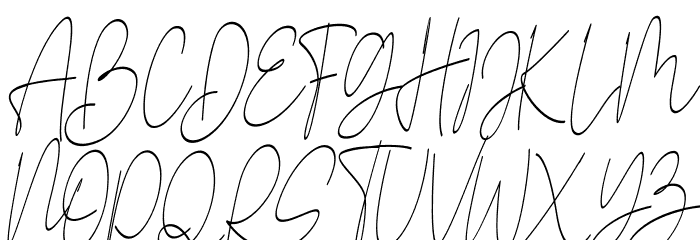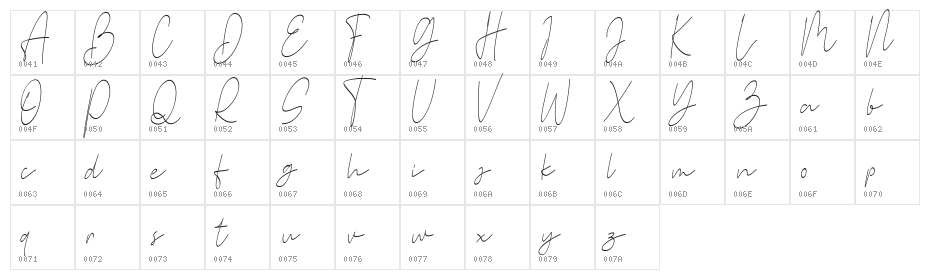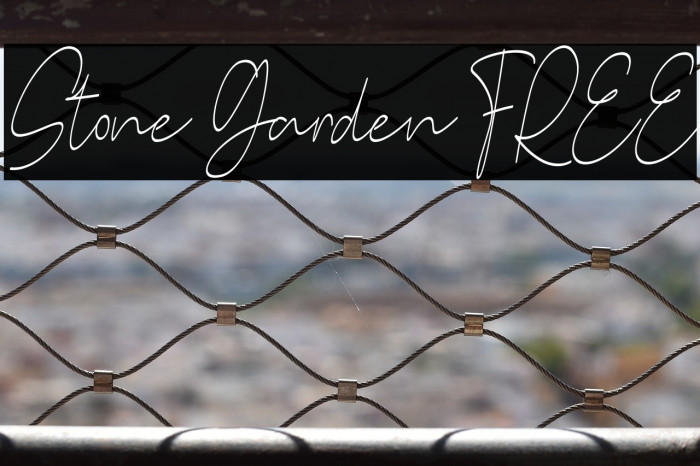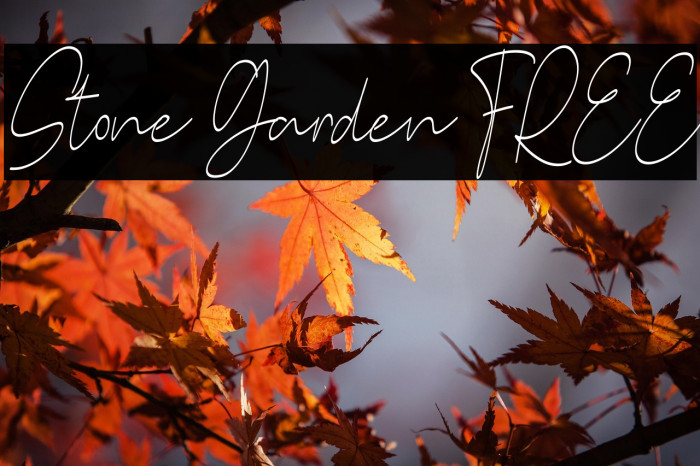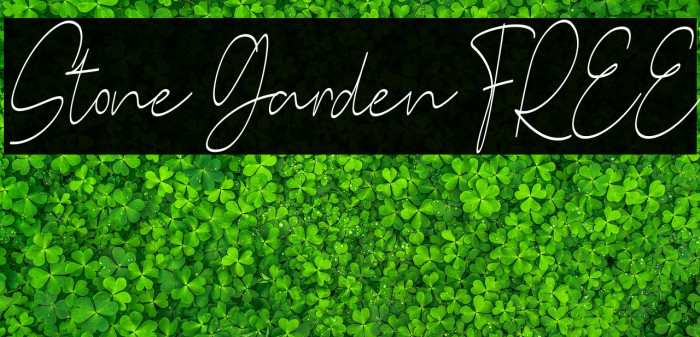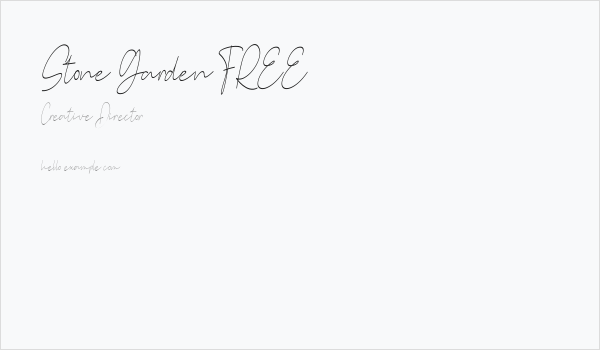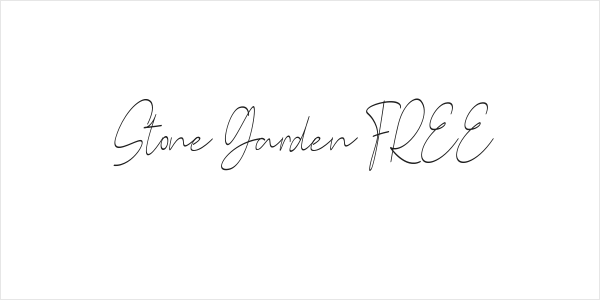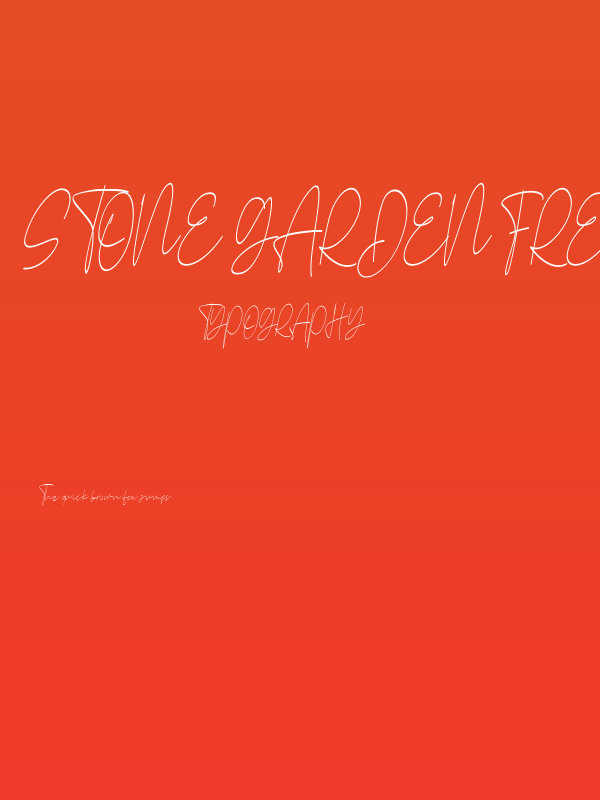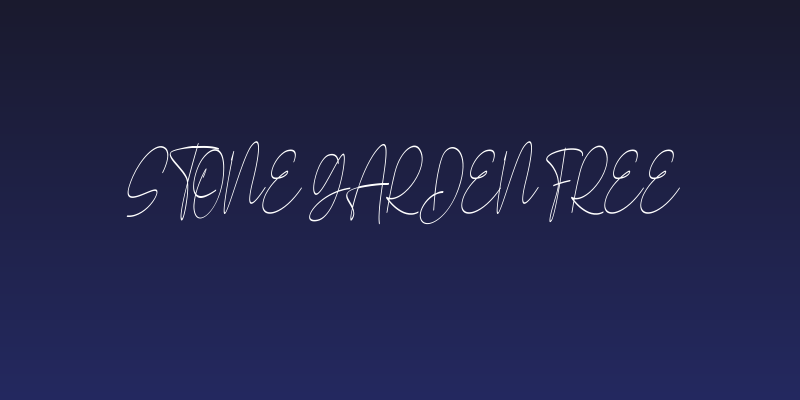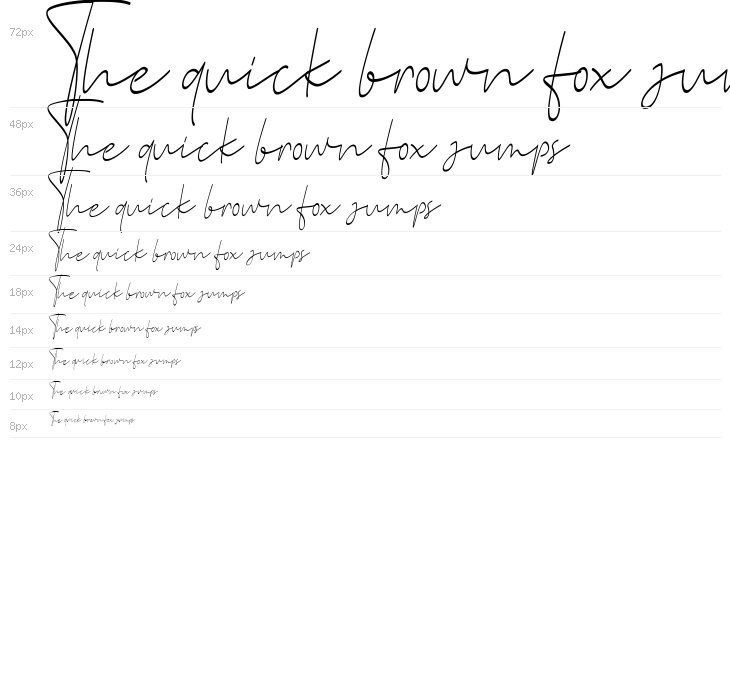
Stone Garden FREE Font
Stone Garden FREE Description
This font features a fluid and elegant script style, characterized by its continuous and flowing letterforms. The strokes are thin and delicate, giving it a graceful and sophisticated appearance. The uppercase letters are slightly larger and more elaborate, while the lowercase letters maintain a consistent flow, enhancing readability. The font's cursive nature adds a personal touch, making it suitable for creative and artistic projects. Its overall design is modern yet timeless, offering versatility in various applications.
Use CaseLogos, Invitations, Artistic projects
Proposed ProjectsIdeal for wedding invitations, greeting cards, branding, and logo design.